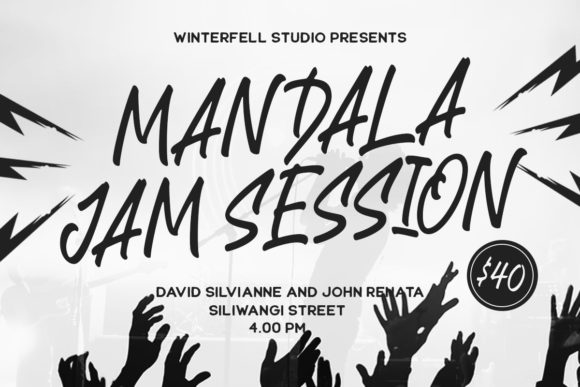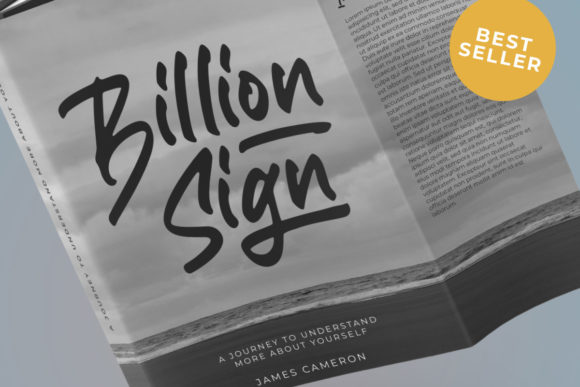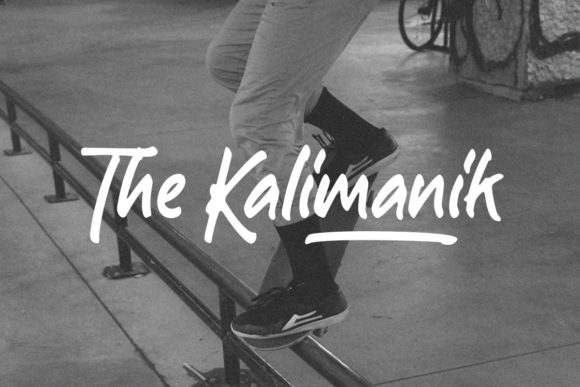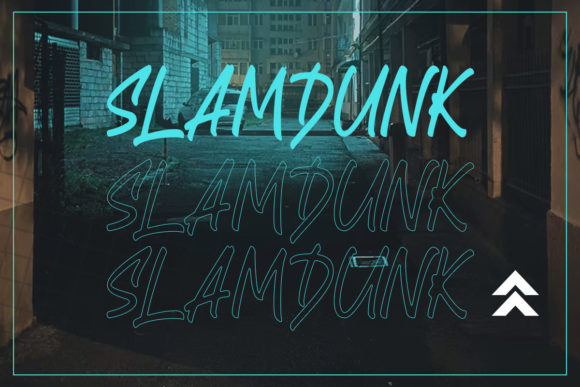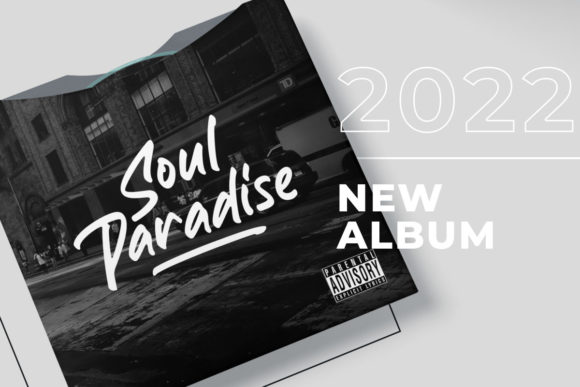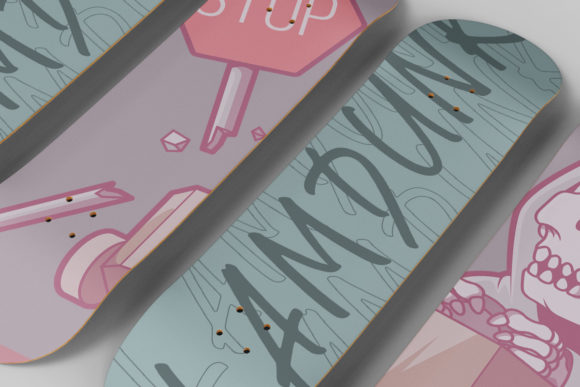
Introducing Backdown Font: The Ultimate Handwritten Typeface for Creative Projects
In the world of typography, a good font can make all the difference in the success of a design project. Whether you’re a professional designer, a crafty DIY enthusiast, or a small business owner, finding the right font can be a daunting task. That’s why we’re excited to introduce Backdown Font, a cool handwritten typeface that’s perfect for a wide range of creative projects.
What is Backdown Font?
Backdown Font is a unique and stylish handwritten font that’s designed to add a personal touch to your designs. Its casual, yet elegant style makes it perfect for projects that require a friendly and approachable tone. The font is carefully crafted to ensure that it’s highly legible, making it suitable for both short and long-form text.
What Can I Use Backdown Font For?
The versatility of Backdown Font is one of its standout features. This typeface is perfect for a wide range of projects, including:
- Logos: Create a unique and memorable logo for your brand with Backdown Font.
- Invitations: Design beautiful and elegant invitations for special occasions like weddings, birthdays, and baby showers.
- Labels: Add a personal touch to your product labels, gift tags, and other packaging materials.
- Magazines and Books: Use Backdown Font for article titles, headings, and body text in your publications.
- Greeting and Wedding Cards: Create stunning and heartfelt cards for any occasion.
- Packaging: Add a touch of personality to your product packaging with Backdown Font.
- Fashion and Makeup: Use Backdown Font for branding, advertising, and promotional materials in the fashion and beauty industries.
- Stationery: Design beautiful and functional stationery, including notebooks, journals, and planners.
- Novels and Short Stories: Use Backdown Font for your book’s title, headings, and body text.
- Labels and Signs: Create eye-catching labels and signs for events, businesses, and products.
- Advertising: Use Backdown Font in your advertising materials, including flyers, brochures, and posters.
Why Choose Backdown Font?
So, why should you choose Backdown Font for your next project? Here are just a few reasons:
- Unique Style: Backdown Font has a distinctive and stylish look that will set your designs apart from the crowd.
- Highly Legible: The font is carefully designed to ensure that it’s easy to read, even at small sizes.
- Versatile: Backdown Font can be used for a wide range of projects, from logos and invitations to books and advertising materials.
- Elegant and Friendly: The font has a warm and approachable tone that’s perfect for designs that require a personal touch.
Tips for Using Backdown Font
To get the most out of Backdown Font, here are a few tips to keep in mind:
- Use it with Contrast: Pair Backdown Font with a contrasting font to create visual interest and hierarchy in your designs.
- Experiment with Colors: Try out different colors and textures to add depth and personality to your designs.
- Play with Size and Spacing: Experiment with different font sizes and spacing to create a unique and eye-catching look.
In conclusion, Backdown Font is a versatile and stylish handwritten typeface that’s perfect for a wide range of creative projects. Its unique style, high legibility, and elegant tone make it an excellent choice for designers, crafters, and small business owners. Whether you’re looking to create a logo, invitation, or book, Backdown Font is sure to add a personal touch to your designs. So why wait? Download Backdown Font today and start creating stunning designs that stand out from the crowd!